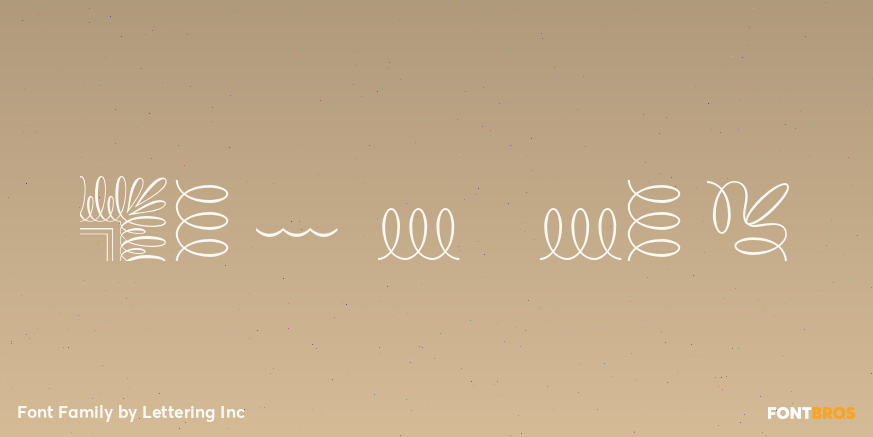
Certified
About Certified
The Certified typeface series was born out of a need to give designers the ability to embellish their designs with high quality certificate borders that could be scaled to any application easily. Rather than scale a static image and end up choking up…